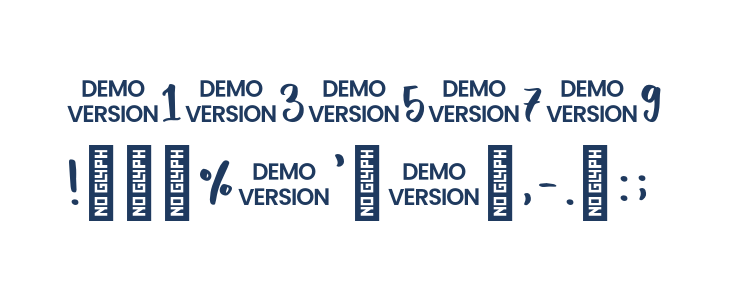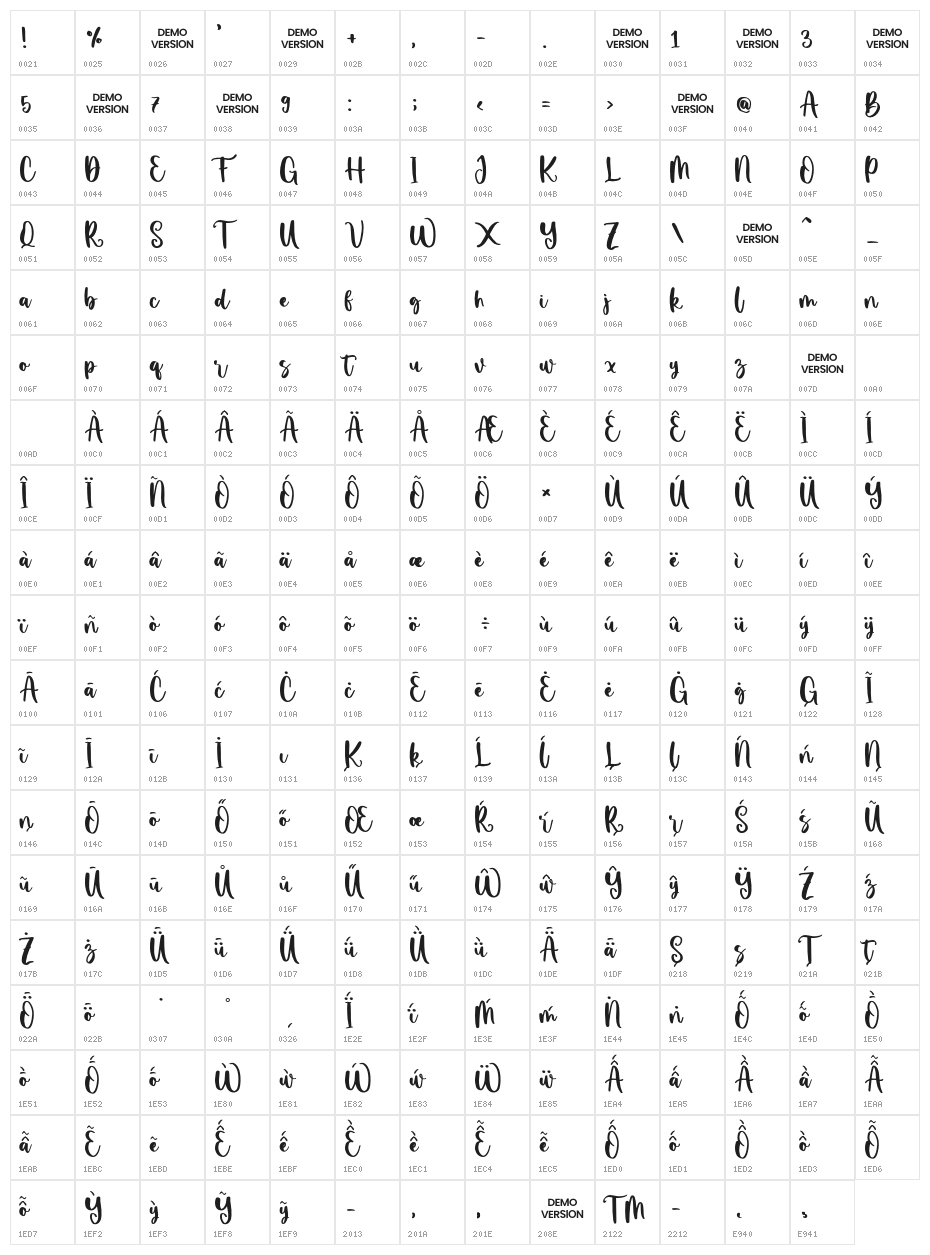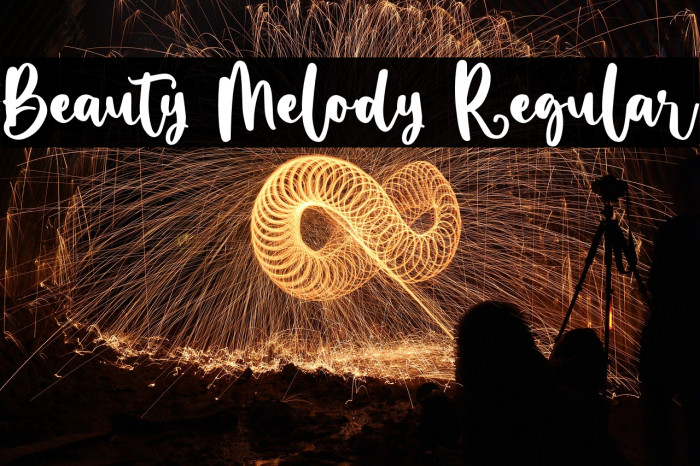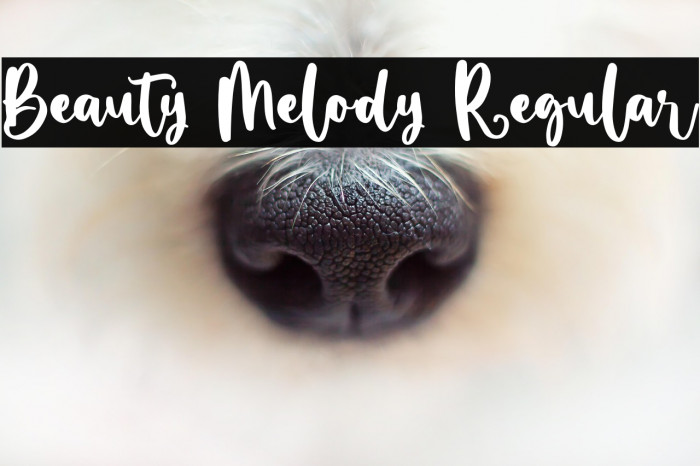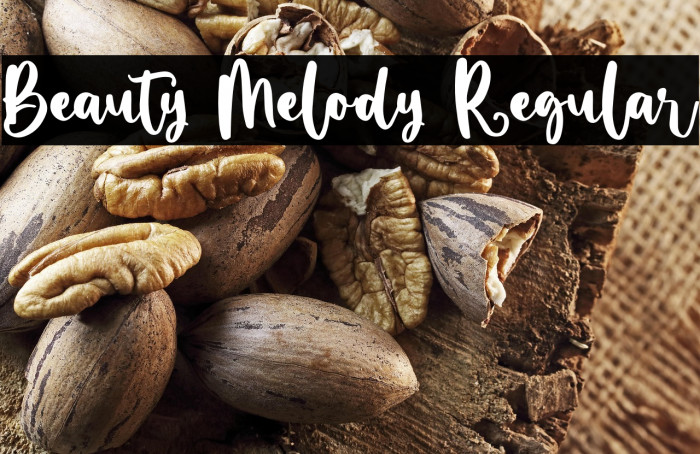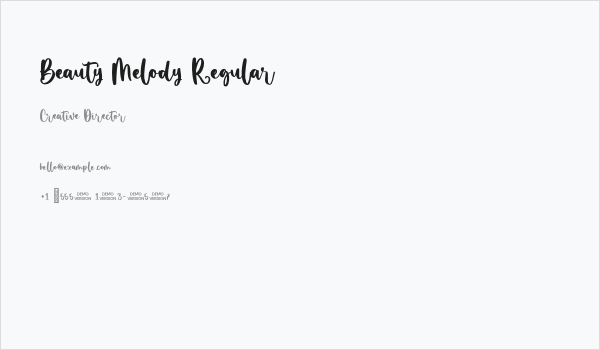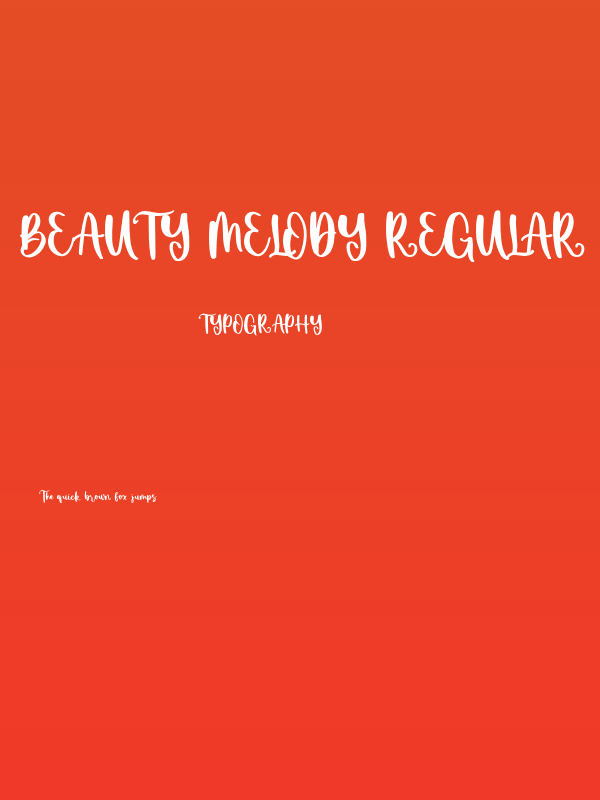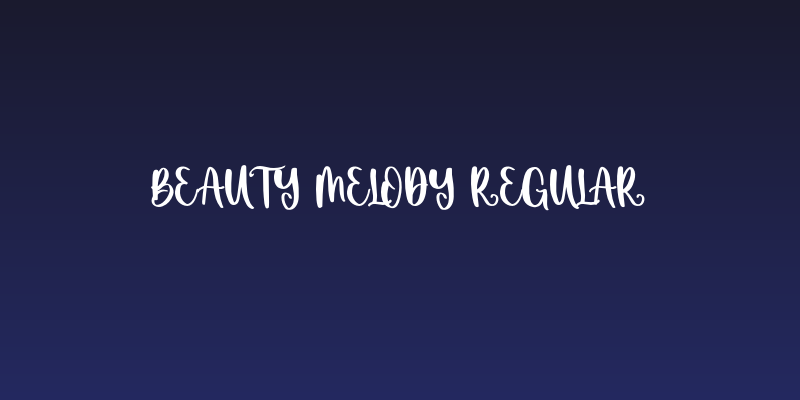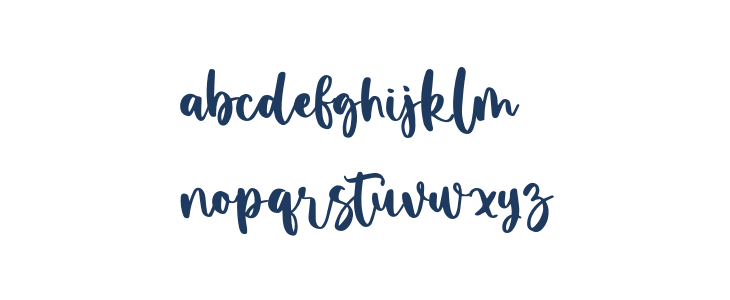
Beauty Melody Regular Font
Beauty Melody Regular Description
This font features a playful and elegant script style with a handwritten appearance. The uppercase letters are bold and flowing, with a slight slant that adds a dynamic feel. The lowercase letters maintain a consistent style, with smooth curves and loops that enhance its decorative nature. The numbers are similarly styled, offering a cohesive look across all characters. The font's overall design is both whimsical and sophisticated, making it suitable for creative projects. Special characters are included, though some are marked as demo versions, indicating limited availability.